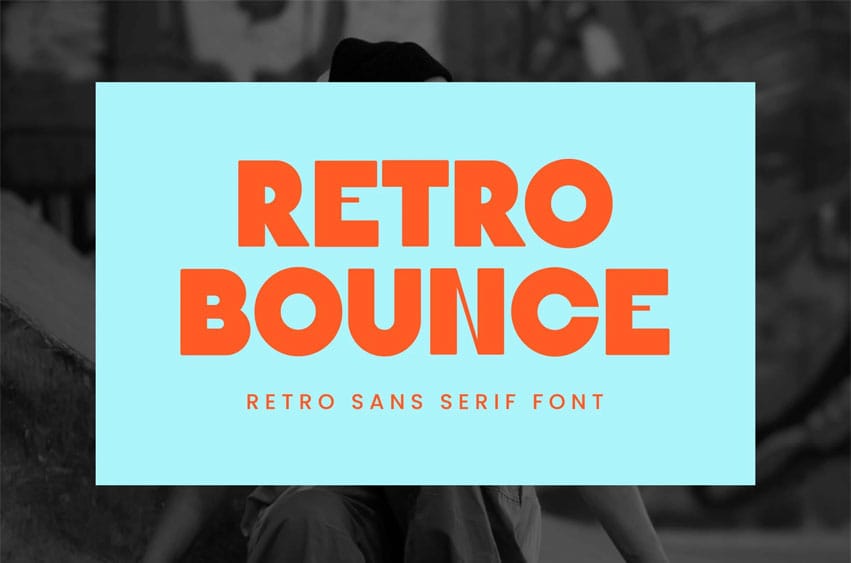
Retro Bounce Font Sans Serif Font emerges as a spirited typographic celebration that masterfully revitalizes mid-century playfulness through contemporary design sensibilities. This exuberant font system provides designers with a distinctive toolkit that balances nostalgic charm with modern functionality, enabling vibrant, character-rich communication for projects seeking to capture attention through joyful visual expression. The font’s expertly crafted letterforms feature dynamic proportions and strategic bounce variations, creating an energetic visual rhythm that conveys optimistic enthusiasm while maintaining surprising versatility across diverse applications.
Developed through thoughtful exploration of playful typography traditions from the golden age of advertising, Retro Bounce achieves a distinctive personality that feels simultaneously vintage and refreshingly current. Its deliberately varied baseline positioning and characterful geometric forms create an animated visual texture that enhances memorability while projecting carefree confidence. The typeface’s development balances expressive character with practical application, ensuring that its playful bounce quality maintains legibility and impact across various contexts from bold headlines to medium-length display text.
Retro Bounce Sans Serif Font demonstrates particular excellence in environments where brands and projects seek to communicate with energetic personality, nostalgic warmth, and distinctive character. Its playful nature makes it ideal for entertainment brands, children’s products, retro-inspired establishments, creative agencies, and lifestyle offerings that value expressive individuality. The font’s ability to convey cheerful optimism while maintaining design sophistication makes it particularly valuable for projects requiring a balance of attention-grabbing character and professional execution, offering designers a typographic voice that resonates with audiences appreciating both nostalgic references and contemporary flair.
Retro Bounce Sans Serif Font Features:
- Dynamic Baseline Variation with Strategic Character Bounce
- Playful Geometric Architecture with Mid-Century Inspiration
- Comprehensive Character Set Supporting Creative Expression
- Alternating Character Heights for Enhanced Visual Rhythm
- Specialized Ligatures and Stylistic Alternates for Custom Personality
- Thoughtfully Balanced Weight Distribution for Visual Impact
- Carefully Crafted Terminals with Period-Authentic Details
- Optimized Spacing Parameters for Display Typography Excellence
- Specialized Numerals with Characteristic Bounce Variation
Retro Bounce Sans Serif Font represents a joyful achievement in expressive typography, offering creators a specialized system that delivers both distinctive character and practical application in attention-grabbing contexts. Its thoughtful development ensures that its playful personality remains functional while maintaining the energetic, optimistic aesthetic that enhances vibrant visual communication. For designers and brands seeking typography that projects cheerful confidence, nostalgic charm and creative individuality, this font provides an essential resource that embraces the timeless appeal of bouncing letterforms while offering the technical quality required for contemporary design implementation.